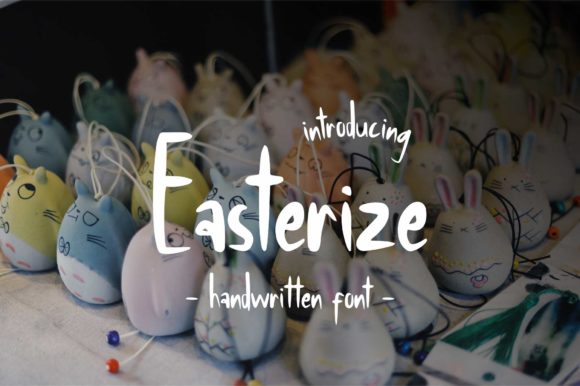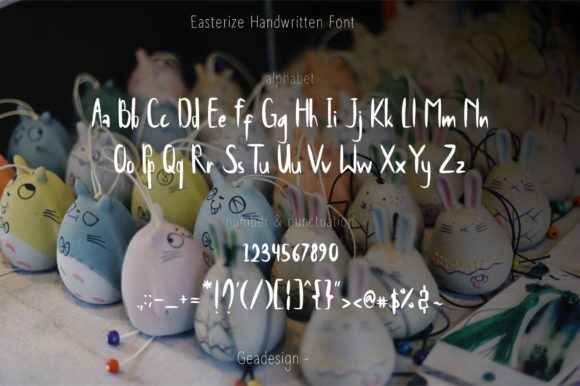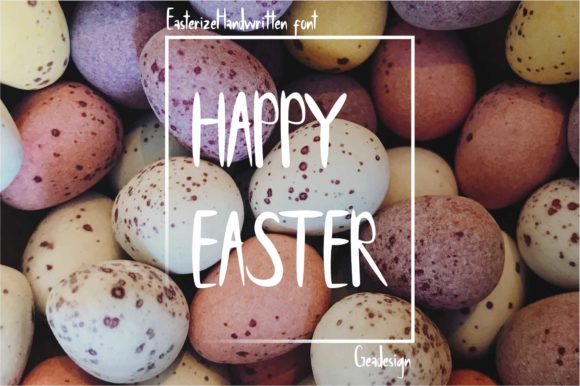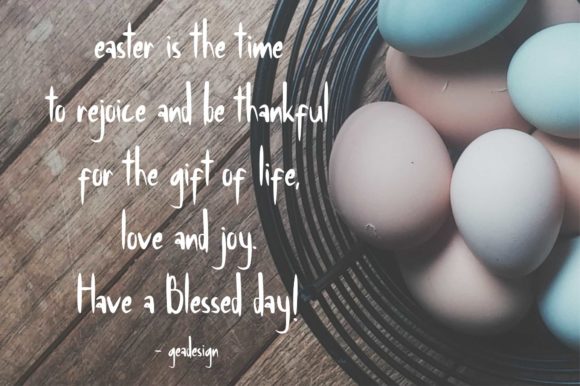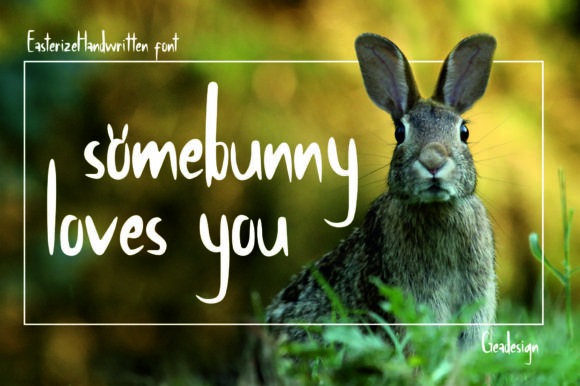
Easterize Font
About Easterize Font
The Easterize is an amazing handwritten font. It has a simple and friendly feel which is perfect for Easter designs.